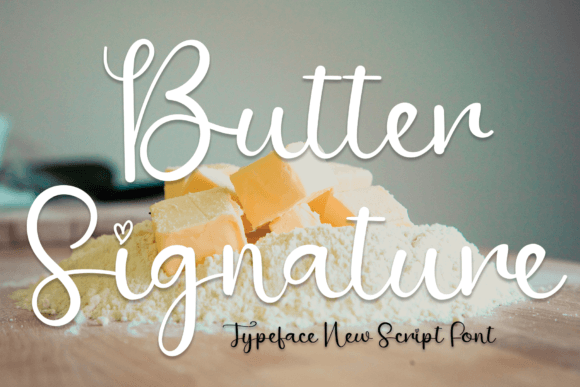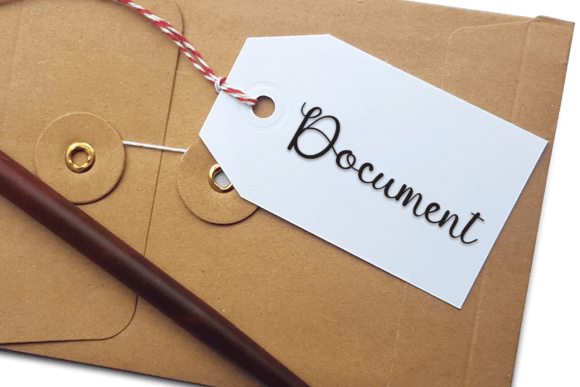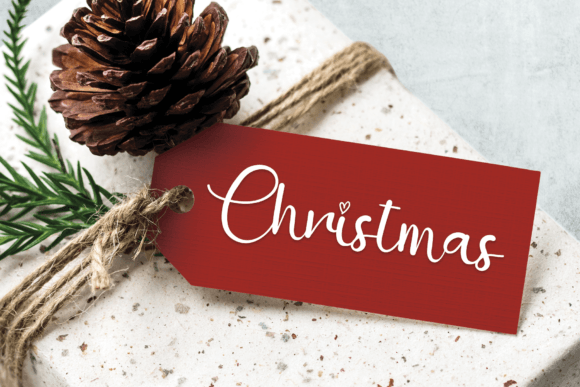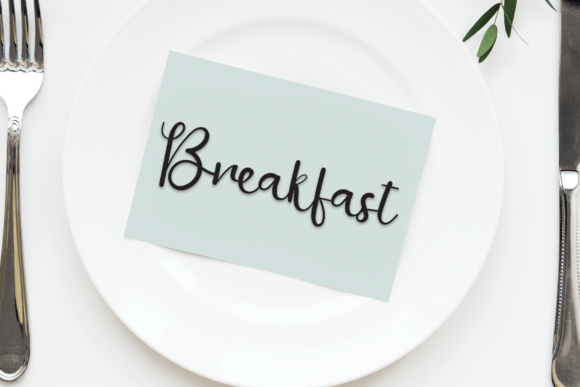
Butter Signature Font
About Butter Signature Font
Butter Signature Font is a clean and inviting handwritten font that brings warmth and personality to your creative work. Its simple curves and soft strokes make it feel approachable while maintaining a polished look, ideal for both personal and commercial projects. Whether you’re crafting heartfelt greeting cards or designing a standout logo, this font adds an effortless, human touch.
This font blends elegance with casual charm, making it highly adaptable across platforms. It was designed with readability and versatility in mind, offering a smooth, flowing appearance that works beautifully in any design context.
Where to Use Butter Signature Font
Butter Signature Font works perfectly across a wide range of creative projects, including:
• ✉️ Greeting Cards & Invitations – Elegant for weddings, birthdays, or thank-you cards
• 🧵 Craft Projects – Great for Cricut or Silhouette use in scrapbooking and personalized gifts
• 🌐 Digital Content – Suitable for social media posts, blog headers, and website banners
• 🏷️ Product Labels & Packaging – Adds a handmade vibe to candles, soaps, or baked goods
• 📢 Presentations & Posters – Keeps content friendly and readable
• ✍️ Handwritten Feel – Delivers a soft, approachable tone across designs
• ✅ Highly Legible – Clean linework ensures great visibility at all sizes
Whether you’re designing for digital platforms or print media, Butter SignatureFont is a reliable and stylish typeface that gives your message a warm, personal tone. It’s simple yet expressive, making it a must-have in your font collection.